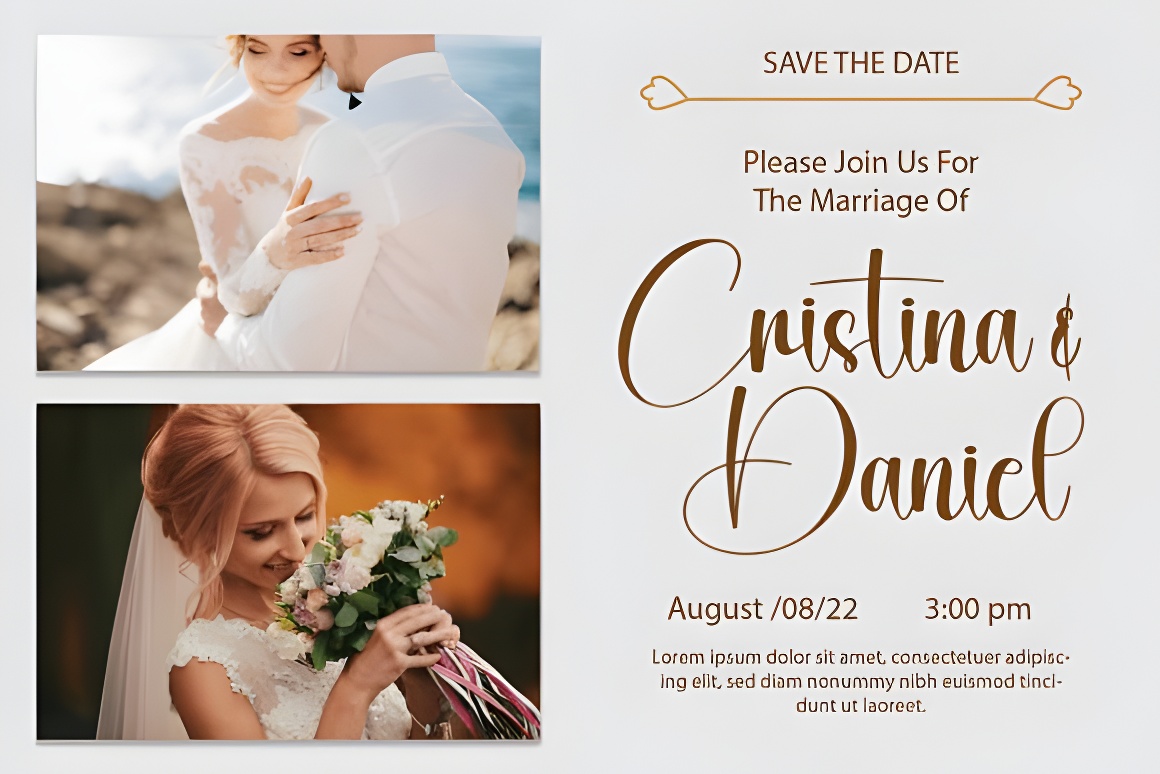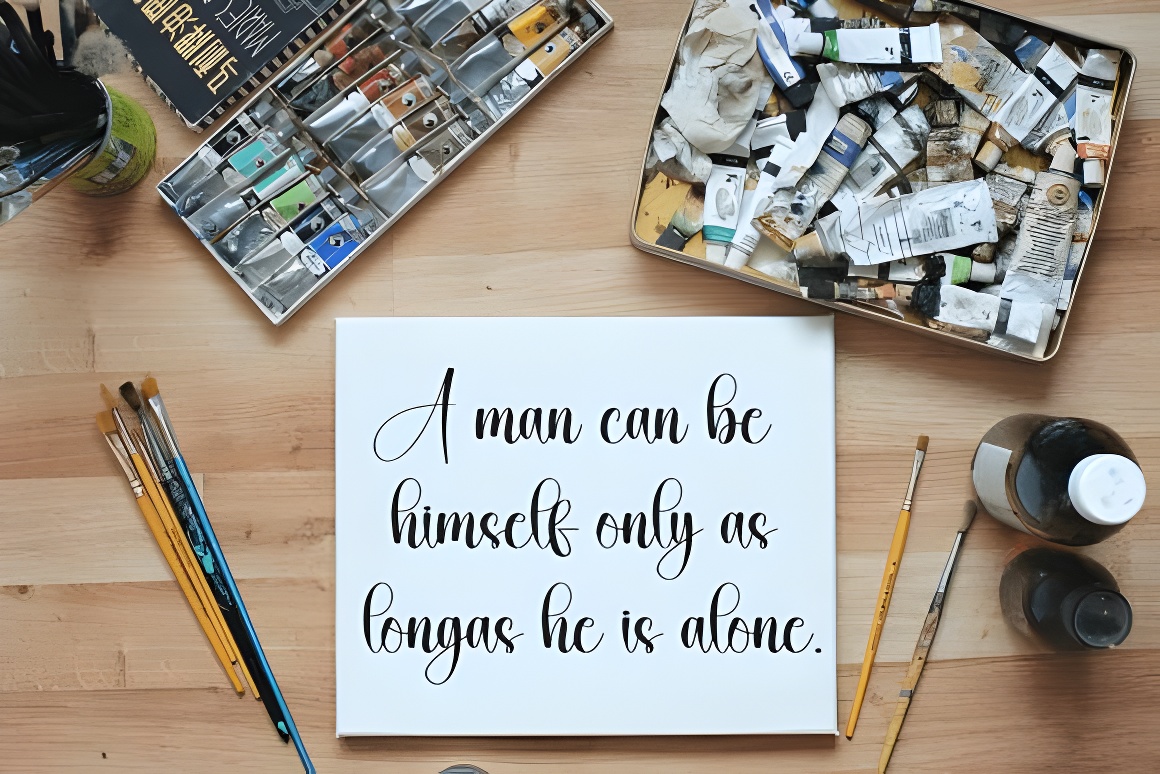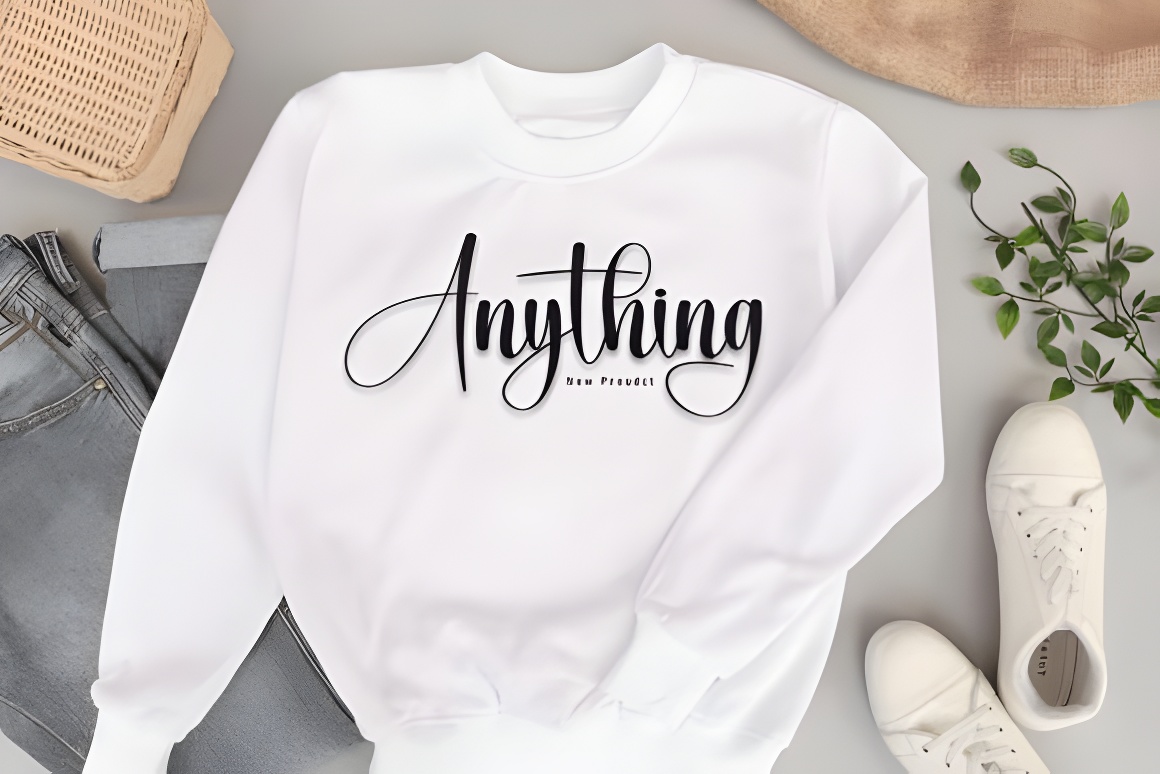
Handwritten Christmas Birthday Script Font - Elegant Style
Stylish handwritten script font with elegant curves for invitations, logos, branding & creative projects. Adds warmth, charm & sophistication to designs.